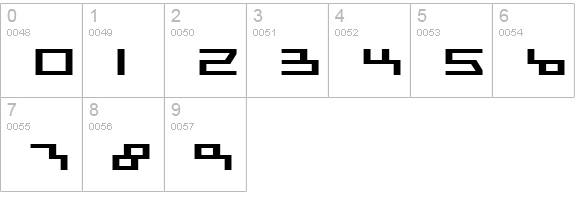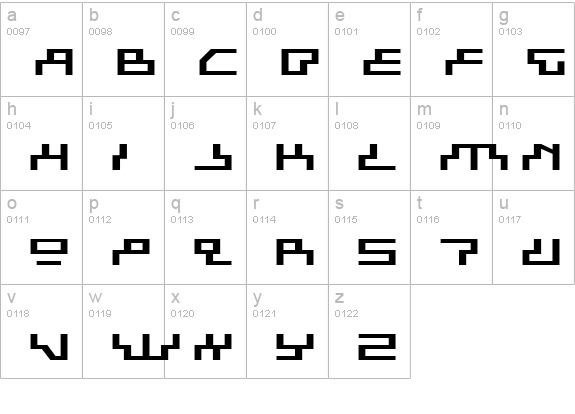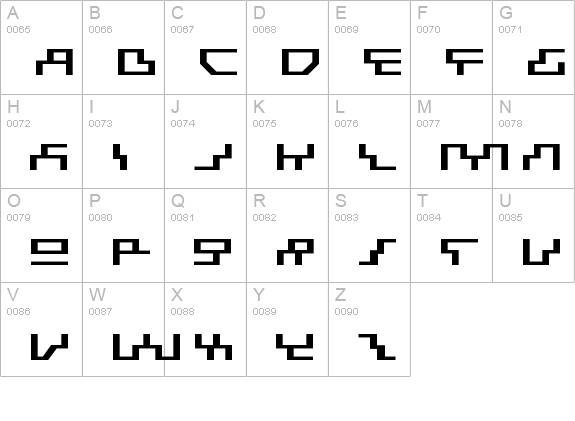
Beam Rider Expanded is a distinctive, extended-width variant in the Beam typeface family \xE2\x80\x94 well suited to design and typography projects.
Beam Rider Expanded is a sleek and modern display font that exudes confidence and style. With its clean lines and sharp angles, this font is perfect for making a bold statement in your designs. The expanded version provides even more impact and presence, making it ideal for headlines, posters, and branding materials. What sets Beam Rider Expanded apart is not only its striking design, but also the fact that it is available for free. Yes, you read that right - this high-quality font can be downloaded for free at FontsMarket.com. Whether you're a designer looking to add a touch of sophistication to your work or a business owner seeking a standout look for your brand, Beam Rider Expanded is the perfect choice. Download it now and elevate your design projects to the next level.